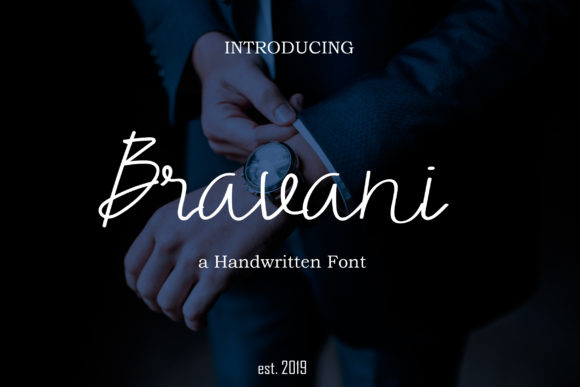
The Bravani Font: Elevate Your Designs with Elegance
I’ll never forget the time I was working on a photography project, and my client asked for a font that would make their brand stand out. I scoured the internet, trying out font after font, but nothing seemed quite right. That was until I stumbled upon the Bravani font. With its simple yet strong look, it instantly caught my attention. In this article, I’ll share my experience with the Bravani font, its features, and how to make the most of it in your designs.
An Honest Review of Bravani Font
The Bravani font has quickly become one of my go-to fonts for various design projects. Here’s what I love about it:
• ✨ Classy and sophisticated: The Bravani font exudes elegance, making it perfect for high-end branding, photography, and signature designs.
• ✅ Versatile: Its simple yet strong look allows it to work well in a variety of design contexts, from modern to traditional.
• 💡 Easy to read: The font’s clear and clean lines ensure that it’s easy to read, even at smaller sizes.
However, no font is perfect, and the Bravani font has a few quirks:
• 🤔 Limited availability of stylistic alternates: While the font has some OpenType features, it’s not as extensive as some other fonts on the market.
• ⚠️ May not work well with certain design styles: The Bravani font’s classic look may not be the best fit for very modern or avant-garde designs.
The Designer Inspiration Behind Bravani Font
The Bravani font was designed with the goal of creating a classy and sophisticated font that would meet the needs of designers and crafters. While the exact designer behind the font is not well-known, it’s clear that they drew inspiration from traditional typography and aimed to create a font that would be both elegant and versatile.
What is the Bravani font best used for? The Bravani font is perfect for photography, signature, and branding designs, where a classy and sophisticated look is desired.
Is the Bravani font suitable for body text? While the Bravani font is easy to read, it’s better suited for headlines and titles. For body text, a clearer font may be more suitable.
Is the Bravani font available in different weights? The Bravani font may be available in different weights, but this depends on the specific version of the font you’re using.